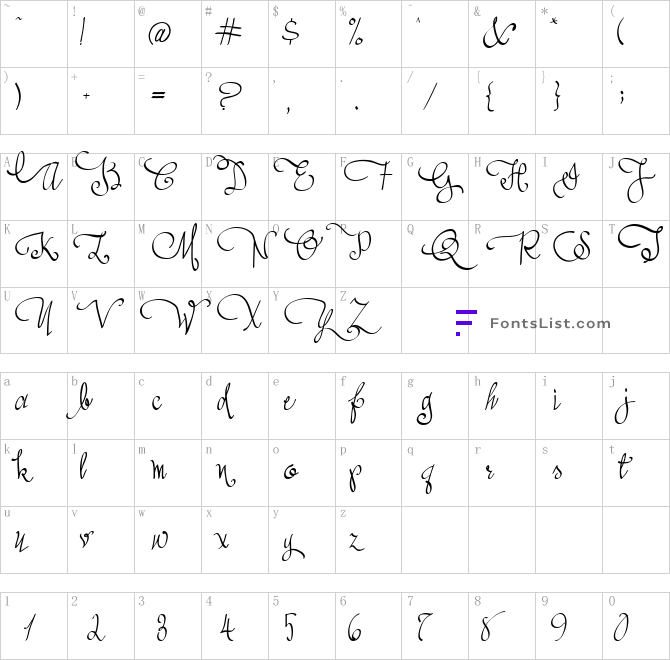
- Font Name:Austie Bost All My Love
Austie-Bost-All-My-Love.ttf is a very beautiful artistic font, Austie-Bost-All-My-Love.ttf is widely used in the design and printing of various books and pictures,Austie-Bost-All-My-Love.ttf has a strong visual impact,Austie-Bost-All-My-Love.ttf is a commonly used font in newspapers, magazines and books, and is used in posters, e-commerce Poster design, store design, logo design, font design and other fields.Austie-Bost-All-My-Love.